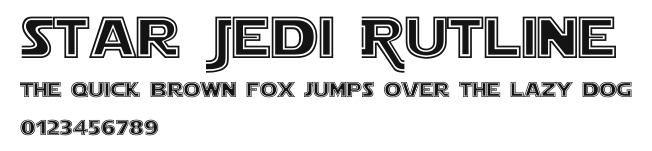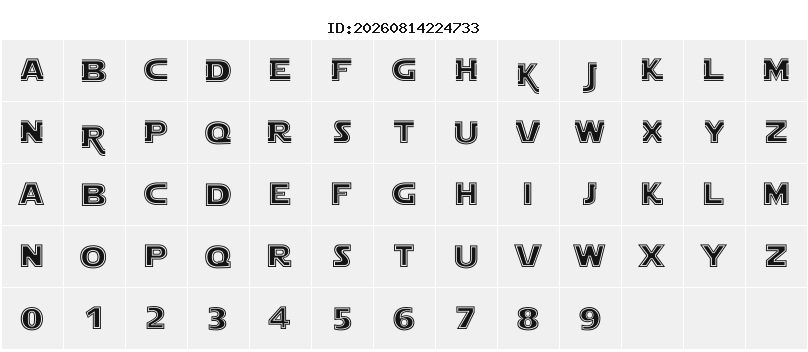
Star Jedi Outline Preview
• Font Name: Star Jedi Outline
• Full Font Name: Star Jedi Outline
• PostScript Name: StarJediOutline
About Star Jedi Outline.ttf
Star Jedi Outline.ttf is a modern, elegant sans-serif font designed for ultimate readability and visual harmony. Perfect for branding, headlines, web design, and print materials.